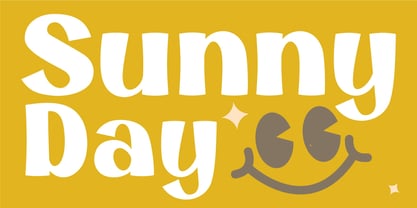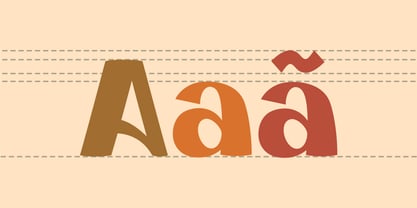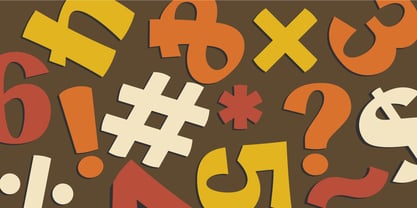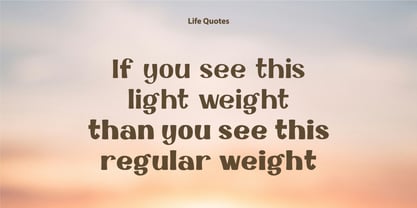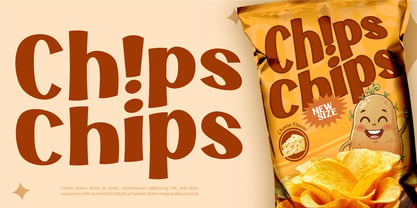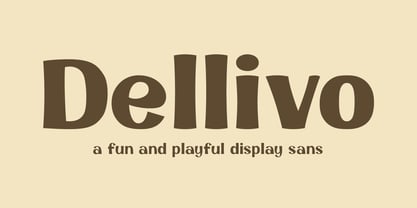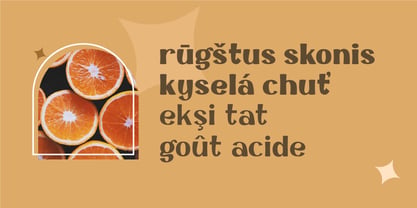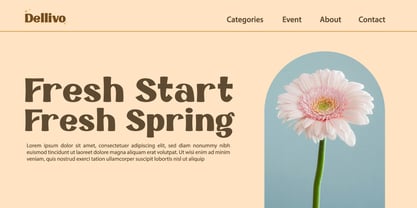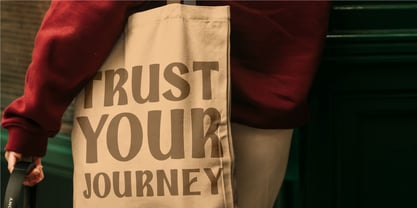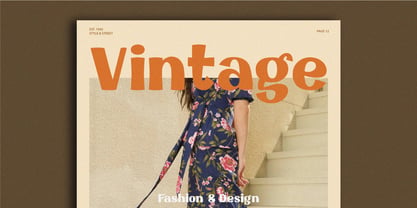
Dellivo
by Yohanes Oktav
The Dellivo Font Family was designed by Yohanes Oktavianus Aang and published by Yohanes Oktav. Dellivo contains 2 styles and family package options.
Dellivo is a fun and playful display sans serif font that infuses warmth and joy into any design. Featuring soft rounded terminals, bouncy curves, and quirky organic details, Dellivo exudes a friendly and approachable vibe, striking a balance between modernity and whimsy. This font is ideal for headlines and large text that require personality and charm. Available in two versatile weights, delicate Light and confident Regular. Dellivo enables subtle hierarchy and layering while ensuring excellent legibility at display sizes. It is perfect for children's books, food packaging, greeting cards, social media graphics, playful branding, posters, invitations, and motivational quotes. With Dellivo, you can add a cheerful, positive touch that resonates emotionally with audiences. Infuse your designs with lighthearted, contemporary elegance by choosing Dellivo today.
Designers: Yohanes Oktavianus Aang
Publisher: Yohanes Oktav
Foundry: Yohanes Oktav
Design Owner: Yohanes Oktav